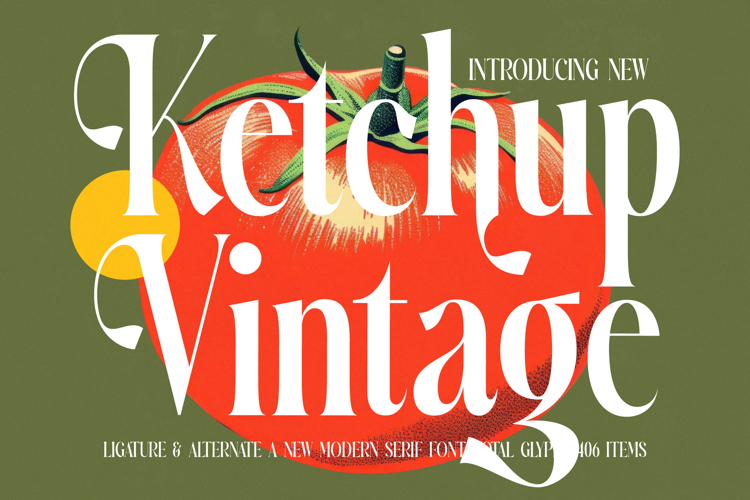
Ketchup Vintage - Modern Serif Font
Discover the ultimate fusion of classic refinement and contemporary flair with Ketchup Vintage - Modern Serif Font. This exceptional typeface introduces a compelling blend of vintage charm and modern sophistication, characterized by its elegant high-contrast letterforms and graceful, expressive curves. It’s meticulously designed to capture attention and infuse any project with a truly timeless aesthetic.
Unleash boundless creative potential with the intricate design details embedded within Ketchup Vintage - Modern Serif Font. Featuring an impressive array of ligatures and alternates, this font provides designers with unparalleled flexibility to craft truly unique visual identities. Each character is sculpted to ensure harmonious flow and powerful impact, making it ideal for impactful headlines and elegant body text alike.